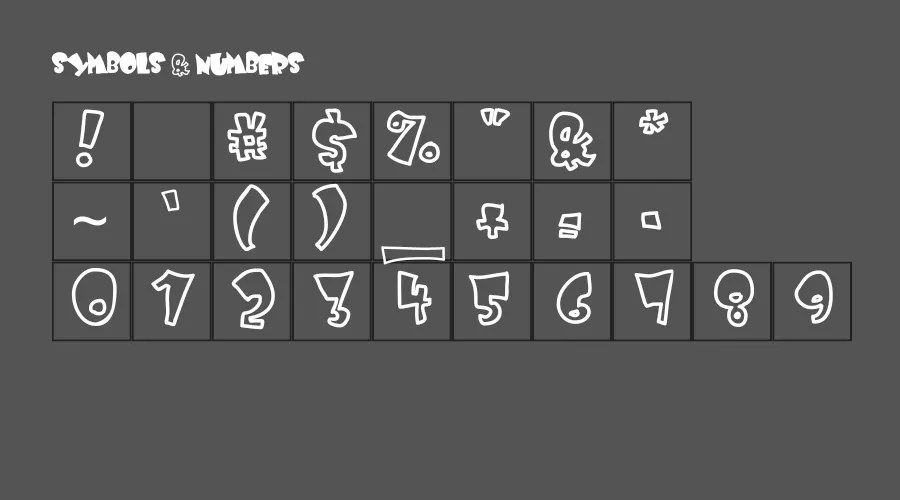
Kruffy Font
About Kruffy Font
Kruffy Font is a truly unique and eye-catching typeface designed by a famous graphic designer named Fontalicious. It looks like a cartoonish texture family with unique and elegant styles such as light, regular, semi-bold, and, bold. You can get it free from here, and utilize it for various purposes and tasks.
It contains various types of alphabet characters such as uppercase letters, lowercase letters, symbols, digits, numerals, and punctuation. This font was created with the goal of looking like an old-fashioned cartoon. It has a good-looking and elegant texture that is perfect for CSS and adobe photoshops.
This font has an online generator tool, it will help you to transform all your simple textures into stylish and trendy shapes by copying and pasting your desired text into it. It can be used with cocomelon font. The curved lines and bold letterforms of the Kruffy Typeface also make it suitable for a wide variety of projects.
The Kruffy Font is a famous texture all around the world. It is mostly utilized for advertising campaigns, television and film titles, logos, branding, and more. You can see in the below image, as it has a cartoonish texture look, this font is the perfect choice for digital scrapbooking, creating greeting cards, or designing customized t-shirts and mugs.
The font has a unique mix of geometry, curves, and patterns that make it stand out from other fonts. It has a slightly vintage look, which makes it great for creating retro-inspired designs. It can be used for both print and digital projects, making it a great choice for any kind of design Project.
Name Kruffy Font
Designer Fontalicious
Style Cartoon
• Kruffy Regular
• Kruffy Bold
• Kruffy semi bold
• Kruffy italic
What type of font is Kruffy Font?
It looks like a cartoonish texture family with unique and elegant styles such as light, regular, semi-bold, and, bold. You may get it free from here, and utilize it for various purposes and tasks.
Who created the Kruffy font?
This typeface is a stylish eye-catchy typeface that has been designed by Fontalicious.